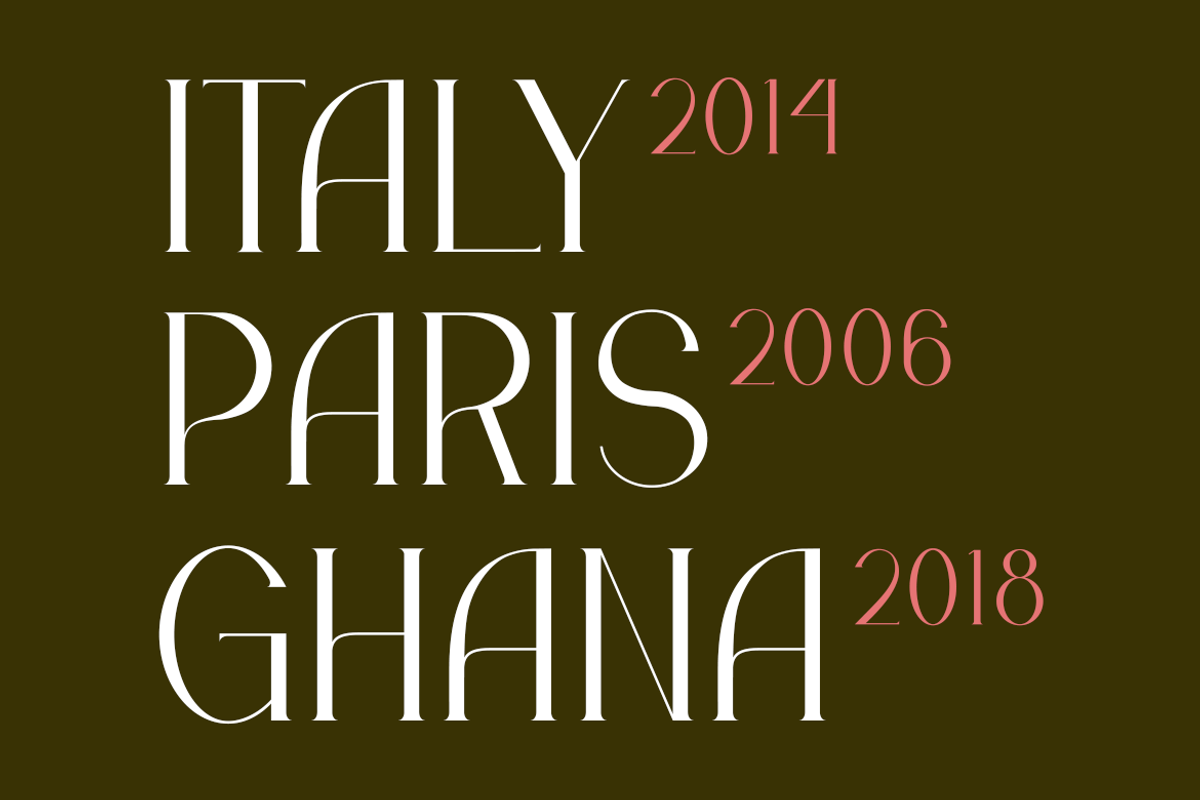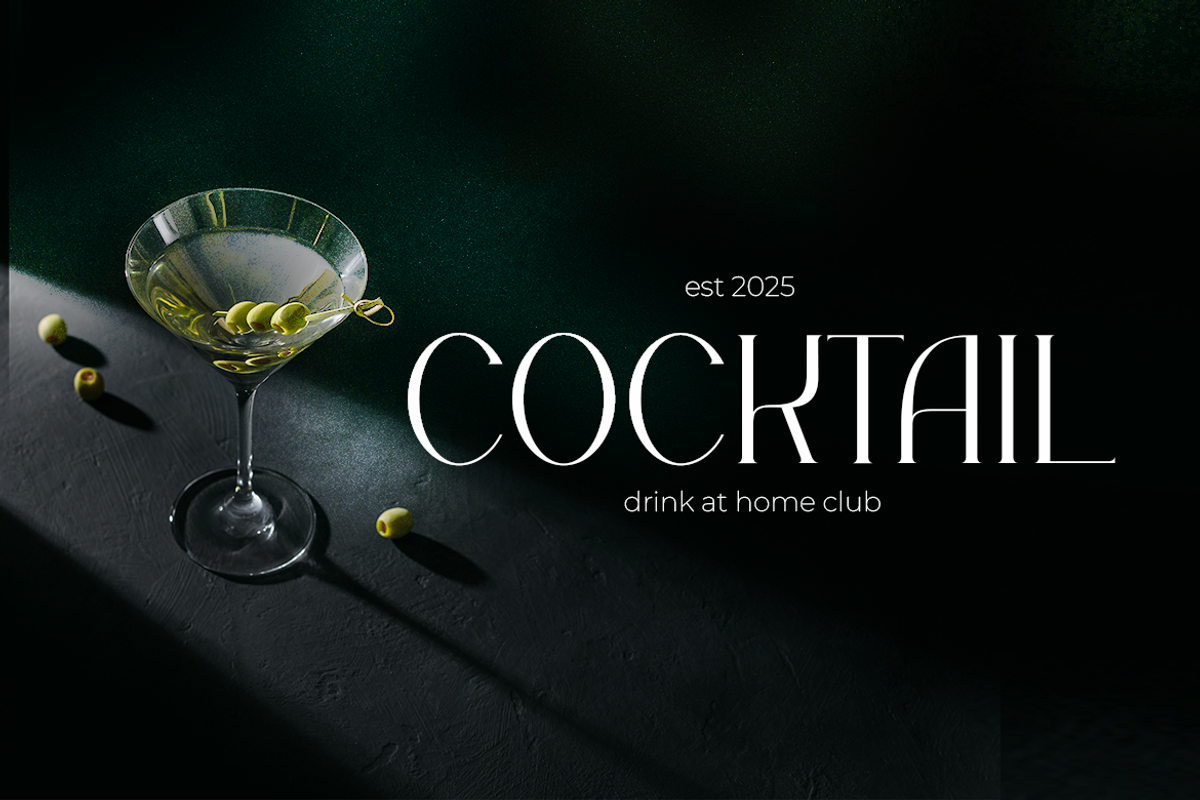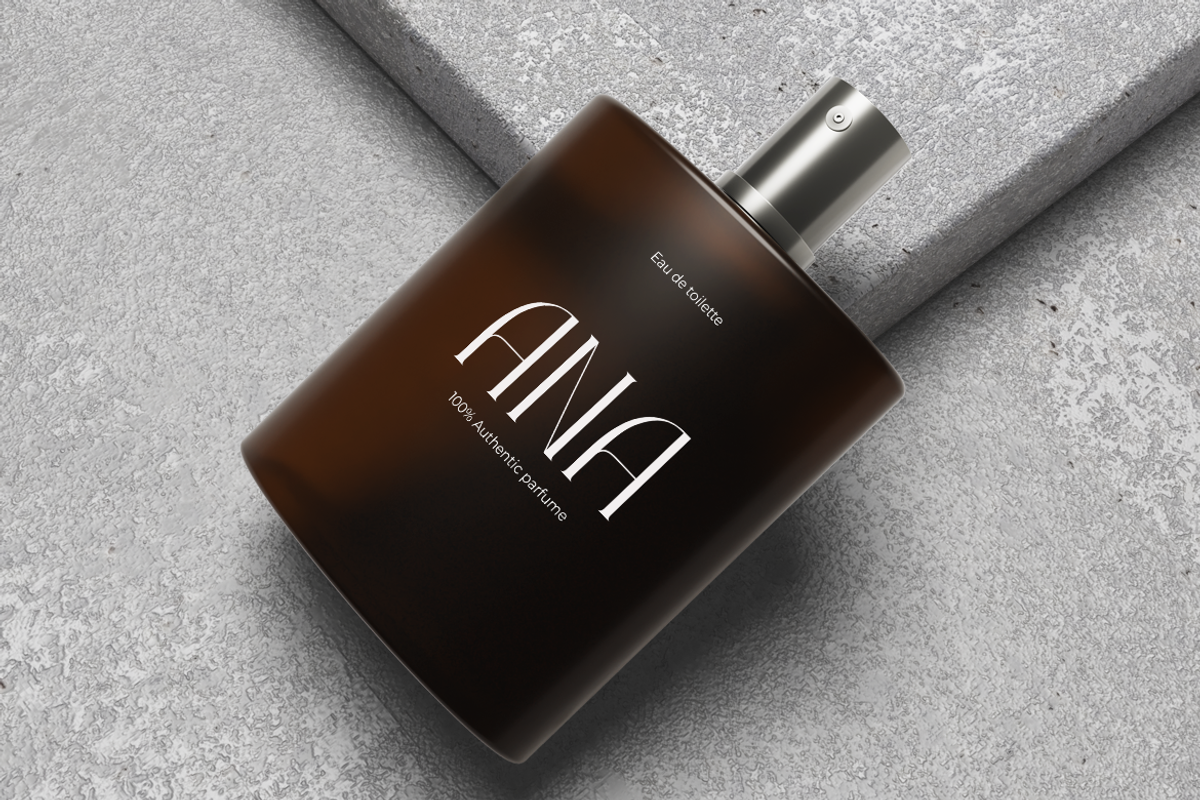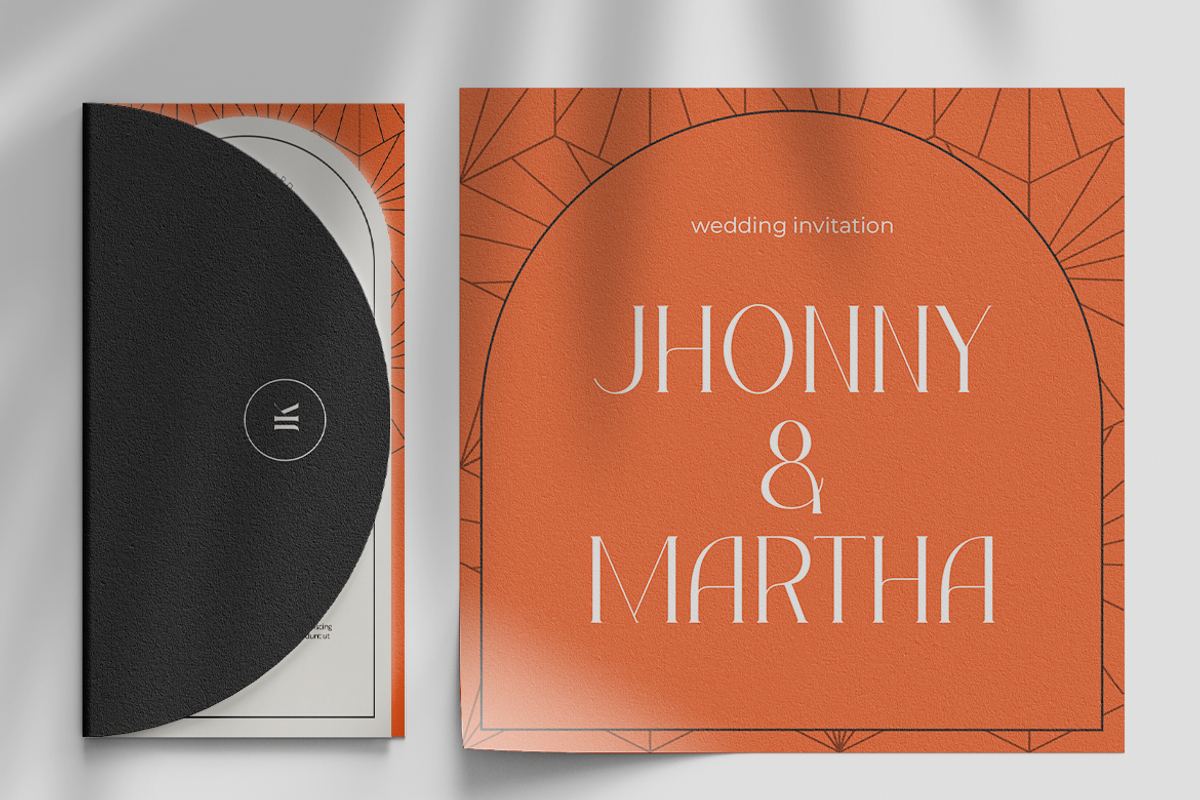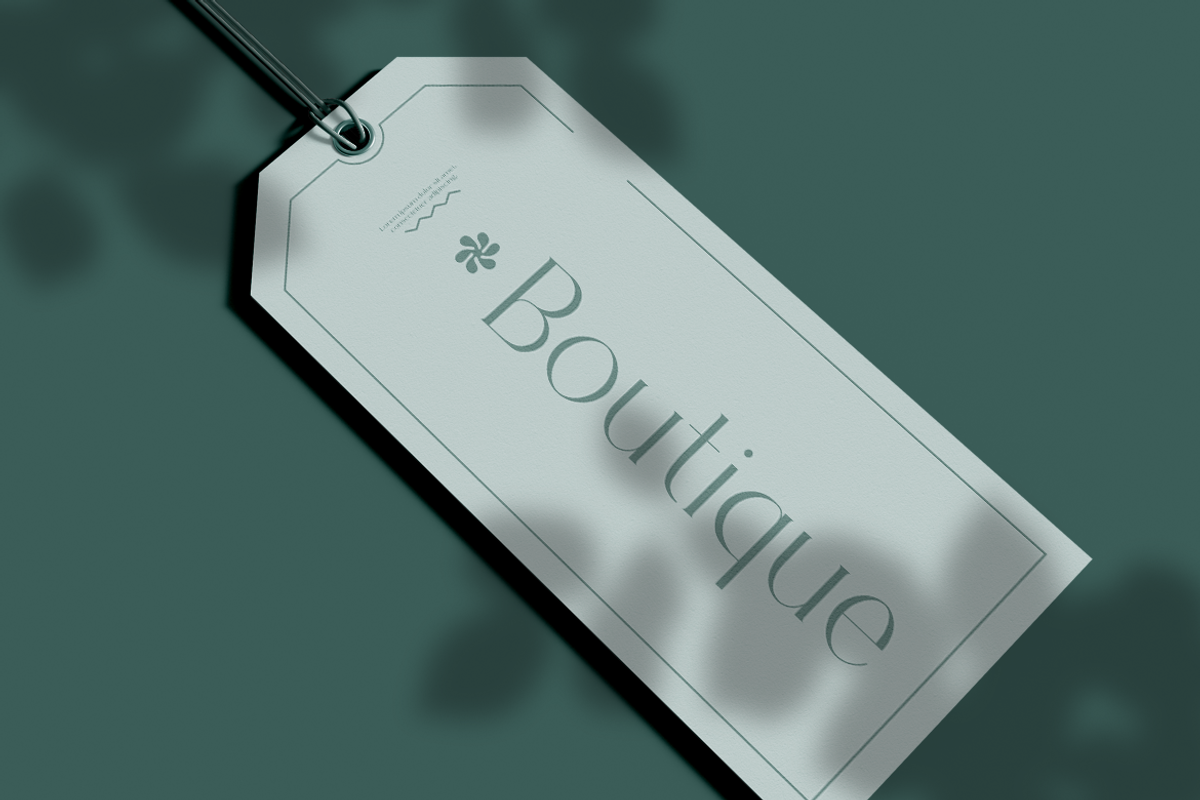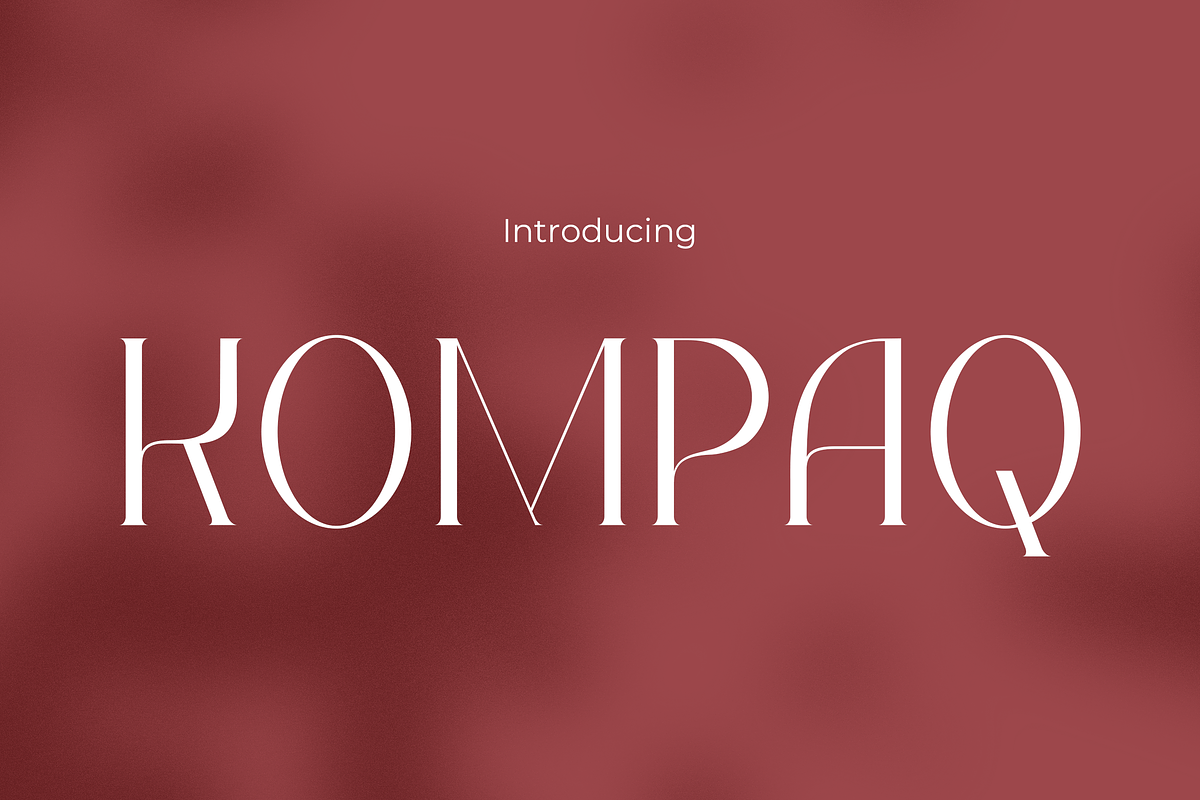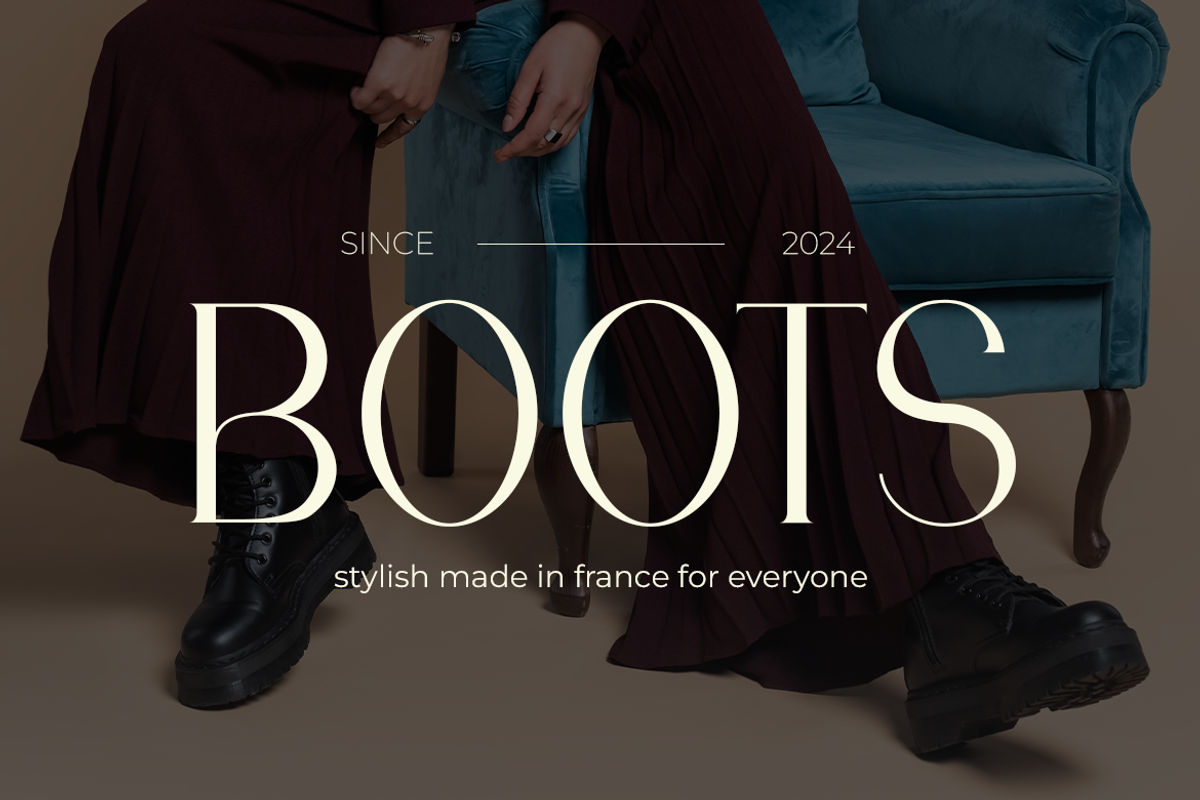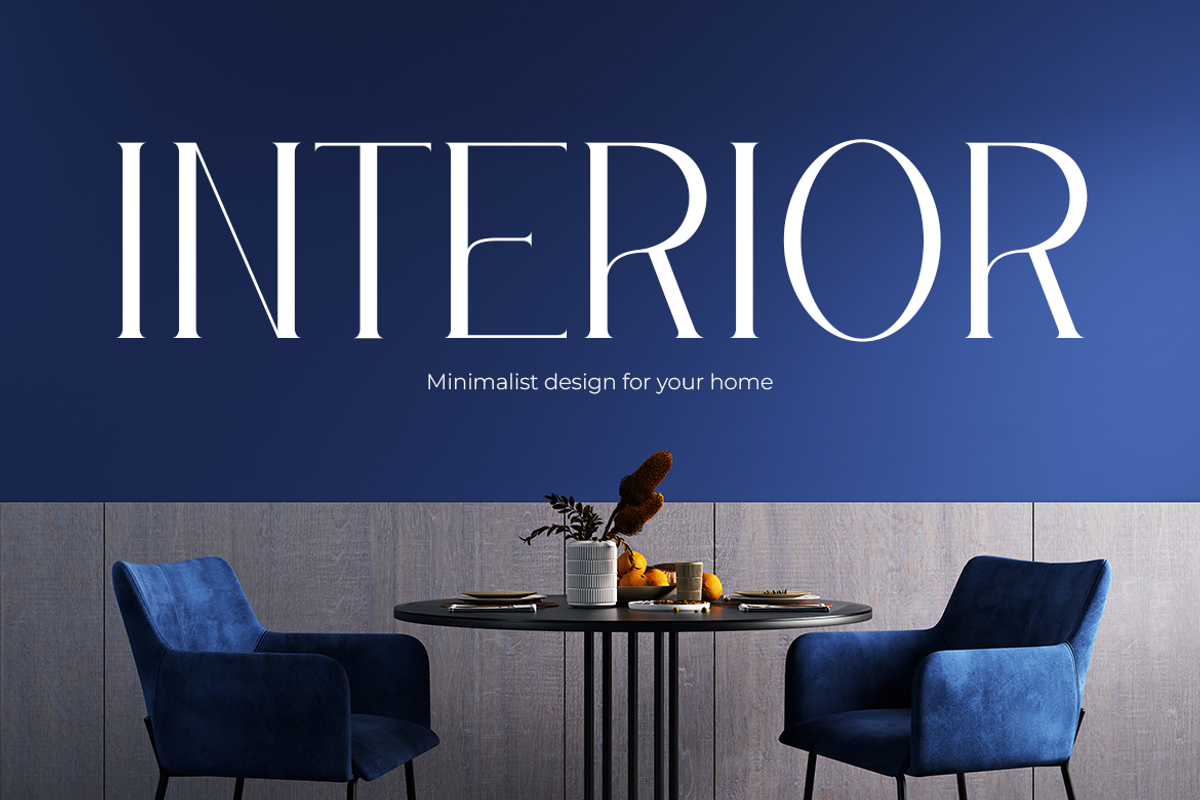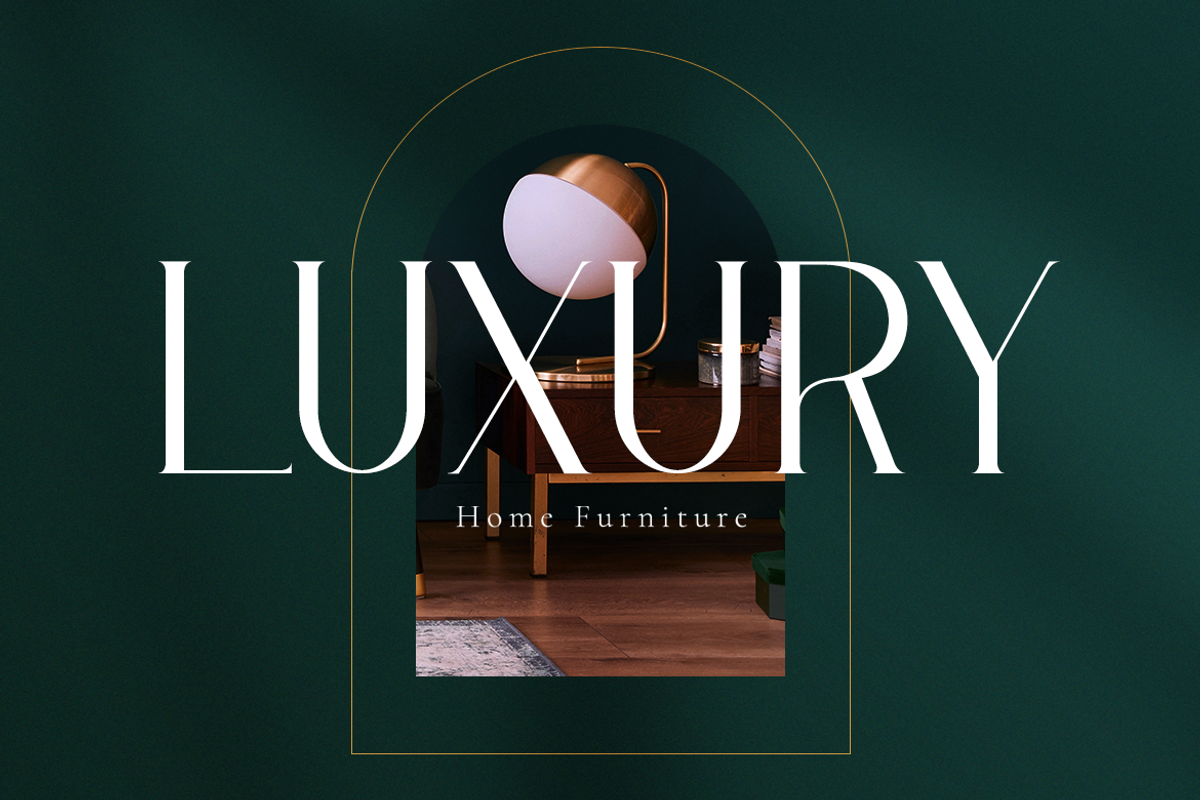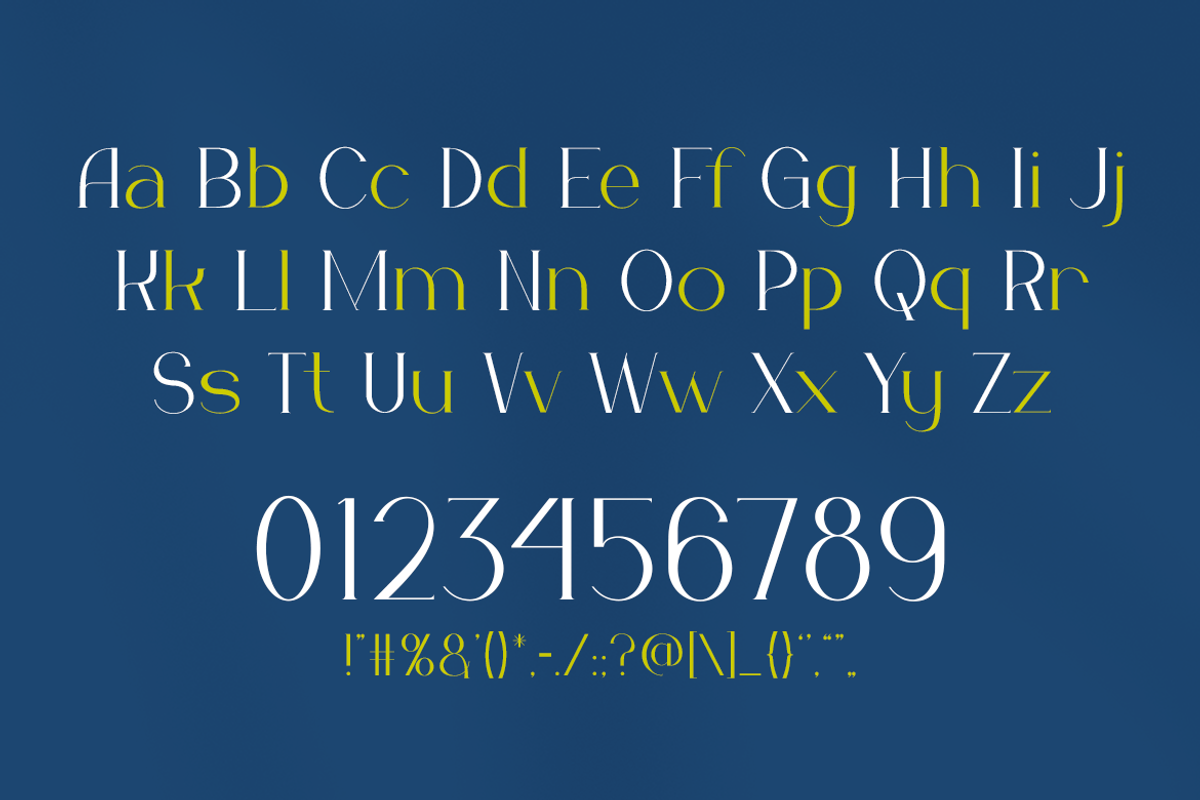
KOMPAQ
Vintage font Kompaq is a sophisticated typeface that combines timeless elegance with a modern edge. Its tall, sleek letters and high-contrast strokes give it a refined and striking appearance. Designed with clean lines and stylish serifs, Kompaq is perfect for projects that need a touch of luxury and professionalism. The font captures the essence of vintage typography while remaining relevant to contemporary design trends. Its versatility makes it suitable for both bold headlines and delicate accent text.
Kompaq stands out for its ability to convey sophistication without compromising readability. Whether you’re working on branding, editorial design, or digital content, this font adapts seamlessly to your needs. Its balance of classic and modern elements makes it an ideal choice for designs that aim to leave a lasting impression. From minimalist layouts to intricate compositions, Kompaq enhances the visual appeal of any project.